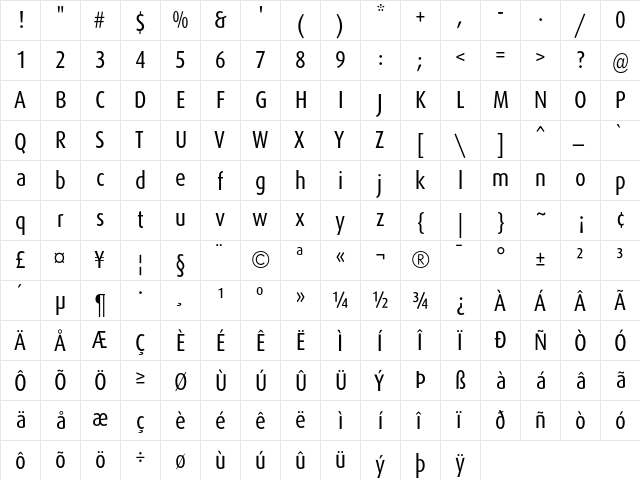
DaxCondensed Regular Font Preview
DaxCondensed Regular
DaxCondensed Regular Font Details
Design Context for DaxCondensed Typeface
DaxCondensed offers clean, dependable letterforms without strong stylistic allegiance, making it a practical choice for designers who need flexibility. Its narrow stance lets it pack a punch even in space-constrained designs.
Pro Tip: Use DaxCondensed in both headline and body roles to test its range before committing to a single application.